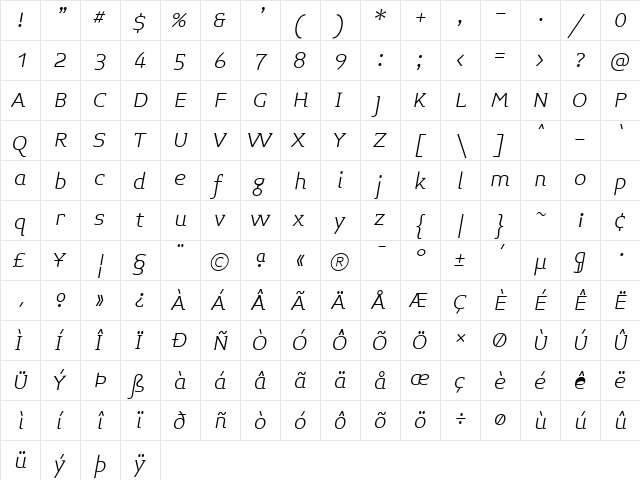
Midiet Serif Italic Light
Design Context for Midiet Typeface
Midiet carries the refined structure of traditional serif typography, with bracketed terminals and considered proportions that communicate credibility and craft. The dynamic lean of this cut emphasises speed and emphasis in any layout. The delicate stroke weight brings airiness and refinement to layouts.
Pro Tip: Set Midiet at slightly larger body copy sizes than you would a regular-weight serif to compensate for its delicate stroke contrast.